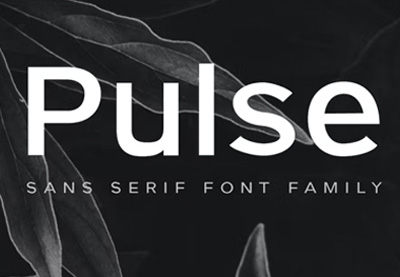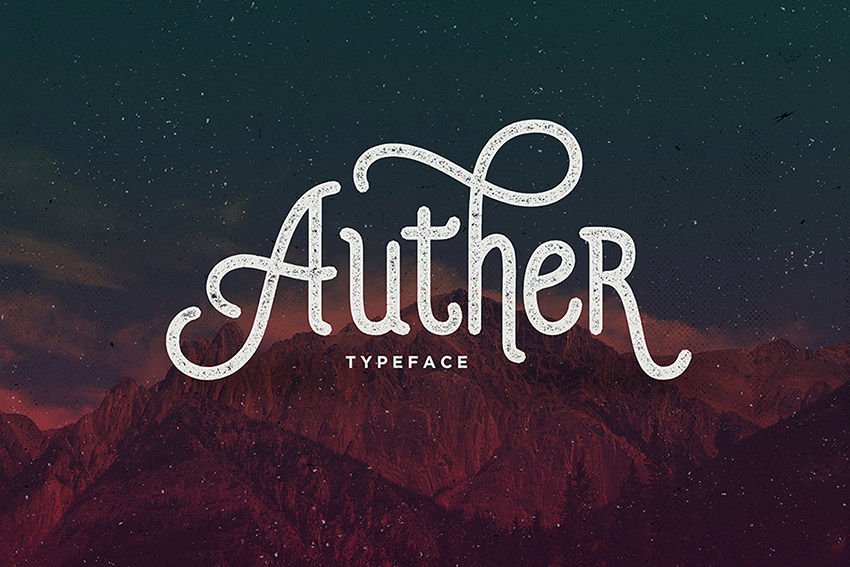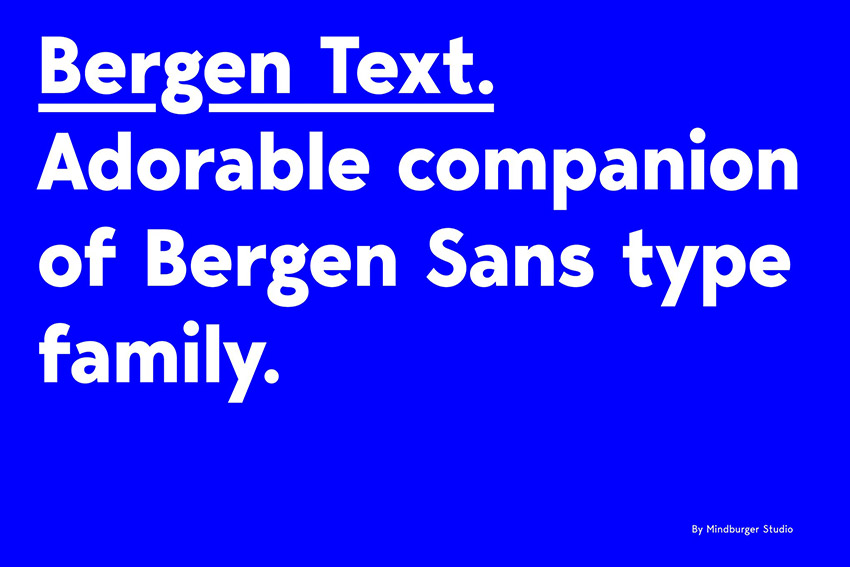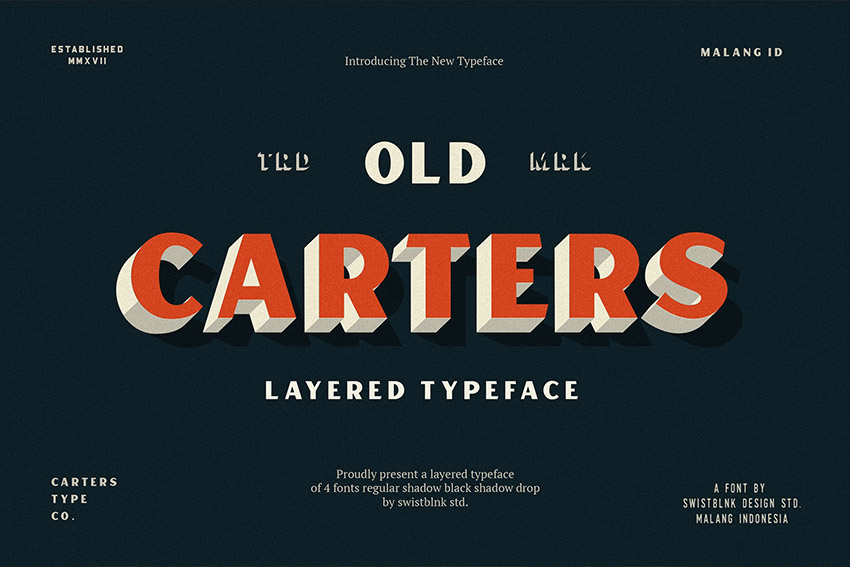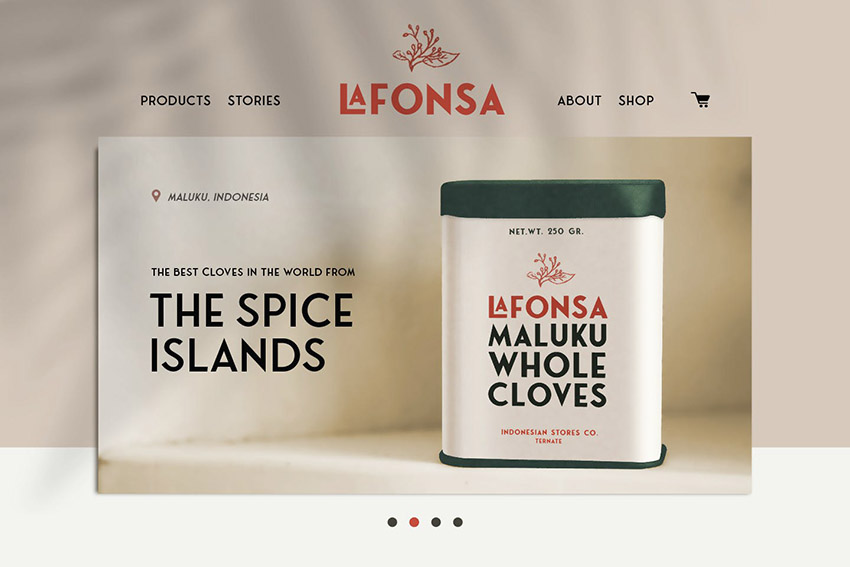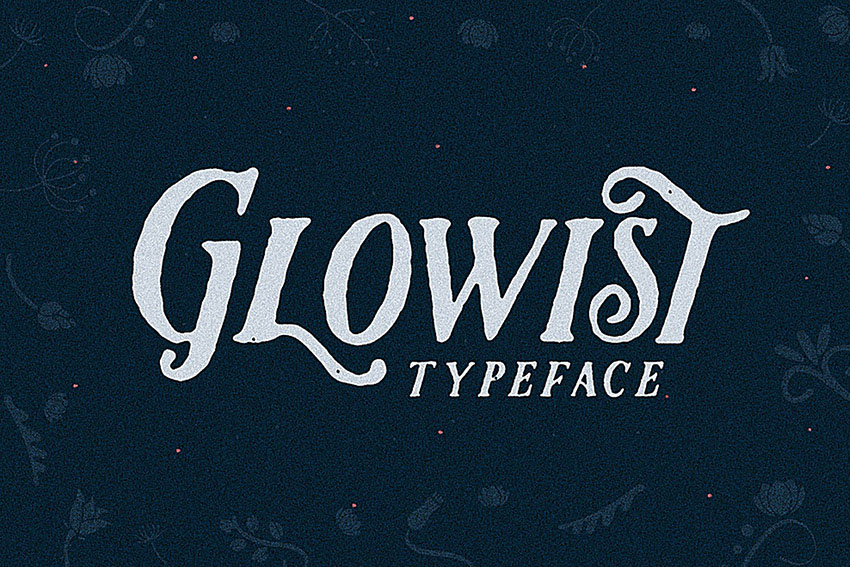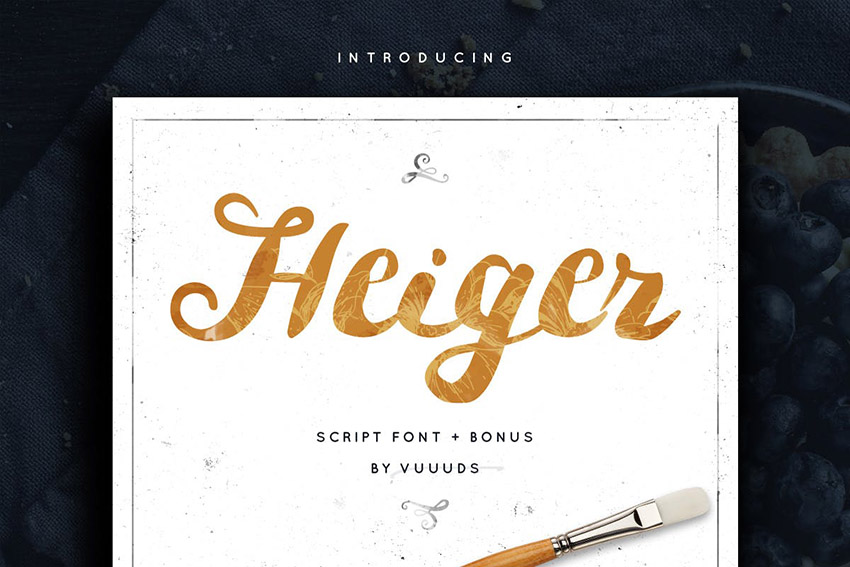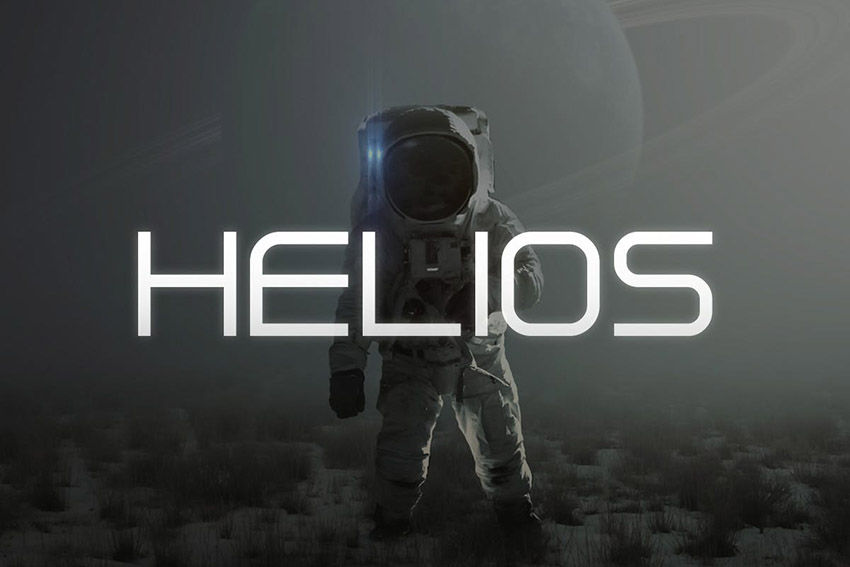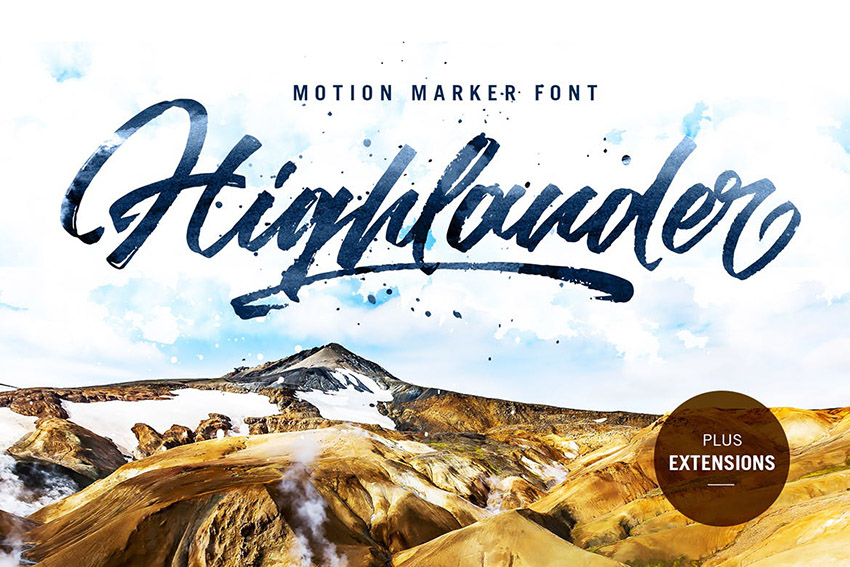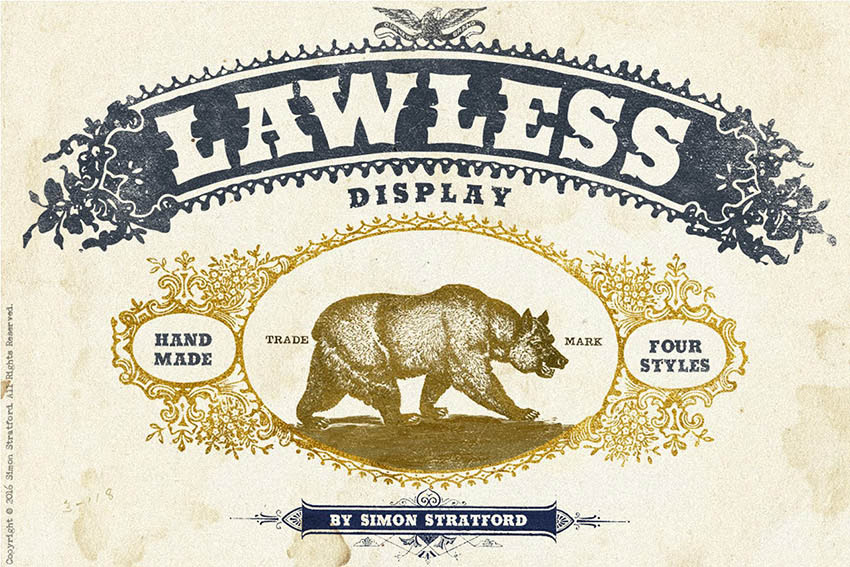
Must-Have Serif Fonts for Graphic Designers
Serifs are wonderful fonts for all of your classy, professional needs. These graphic design fonts work fantastically for corporate branding, print media, and an assortment of other font needs. Here are some of the best serif fonts for graphic design.
Must-Have Script Fonts for Graphic Designers
Script fonts range from handwriting to calligraphic masterpieces. They're fantastic for creative logotypes, headers, and T-shirt designs. Check out the selection of graphic design fonts below for a taste of some of my favorite fonts for graphic designers.
Must-Have Sans Serif Fonts for Graphic Designers
Often sans-serif fonts are the plainest of all (think Helvetica). They can range from geometric to rounded masterpieces, allowing for information to be communicated with simplicity. Scroll down to witness the best sans-serif fonts for designers.
Must-Have Decorative Fonts for Graphic Designers
A mix of serifs, scripts, and sans-serifs, these fonts are great for display needs and other fun projects. Whether they're letters made from messy grunge brushes or little shapes, decorative fonts are a fun addition to your collection.